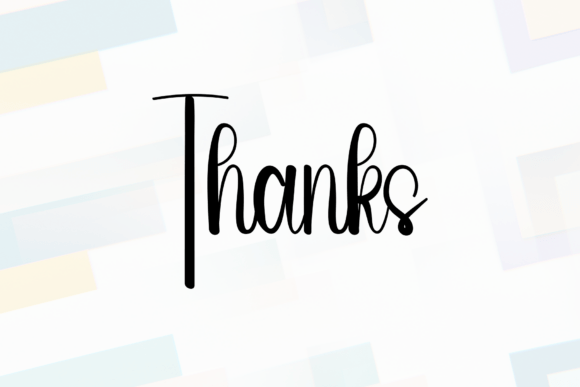
Introduction to Emeralad Font
Have you ever stumbled upon a design element that instantly elevates your creative project to new heights? For designers, discovering the perfect font can be a game-changer. For me, that moment came when I stumbled upon the exquisite Emeralad Font. Its elegant, sweeping handwritten script captured my attention, and I knew I had to learn more about this stunning design resource.
As I delved deeper into the world of Emeralad Font, I was struck by its high-quality craftsmanship and sophistication. Whether you’re working on a luxury wedding invitation or a high-end beauty branding project, this font is sure to add a touch of refined elegance. Plus, with a transparent background, you can easily customize it to fit your design needs. Let’s take a closer look at what makes Emeralad Font a valuable addition to any designer’s toolkit.
Key Features of Emeralad Font
- High-quality font with a unique, creative design, perfect for any project.
- Unique, handcrafted design elements that set it apart from other fonts in its class.
Honest Review: Emeralad Font
I recently stumbled upon the Emeralad Font while searching for a high-quality font for a creative project. I was excited to try it out and see if it would meet my expectations.
First impressions are everything, and I was blown away by the font’s sleek and modern design. The transparent background makes it perfect for use on any background or image. The font is also highly customizable, allowing me to adjust the size, color, and style to fit my project’s needs.
- High-quality design: The Emeralad Font is well-designed and visually appealing, making it a great addition to any project.
- Limited character set: The Emeralad Font only includes a limited character set, which may not be suitable for projects that require a wide range of characters.
- No bold or italic styles: The font only includes regular and light styles, which may limit its use in certain projects.
Overall, I’m impressed with the Emeralad Font and would definitely recommend it for creative projects that require a high-quality, modern font. While it has some limitations, it’s a great design resource that’s worth checking out.
Use the Emeralad Font in combination with other design elements to create a cohesive and high-quality design. Experiment with different font sizes and colors to add depth and visual interest to your design. This font is perfect for designers looking for a unique and creative touch.
The Emeralad Font is commonly used in graphic design, logo creation, and branding materials. It’s also perfect for creating social media graphics, flyers, and brochures. This font is a valuable design resource for any creative project requiring a high-quality, unique touch.